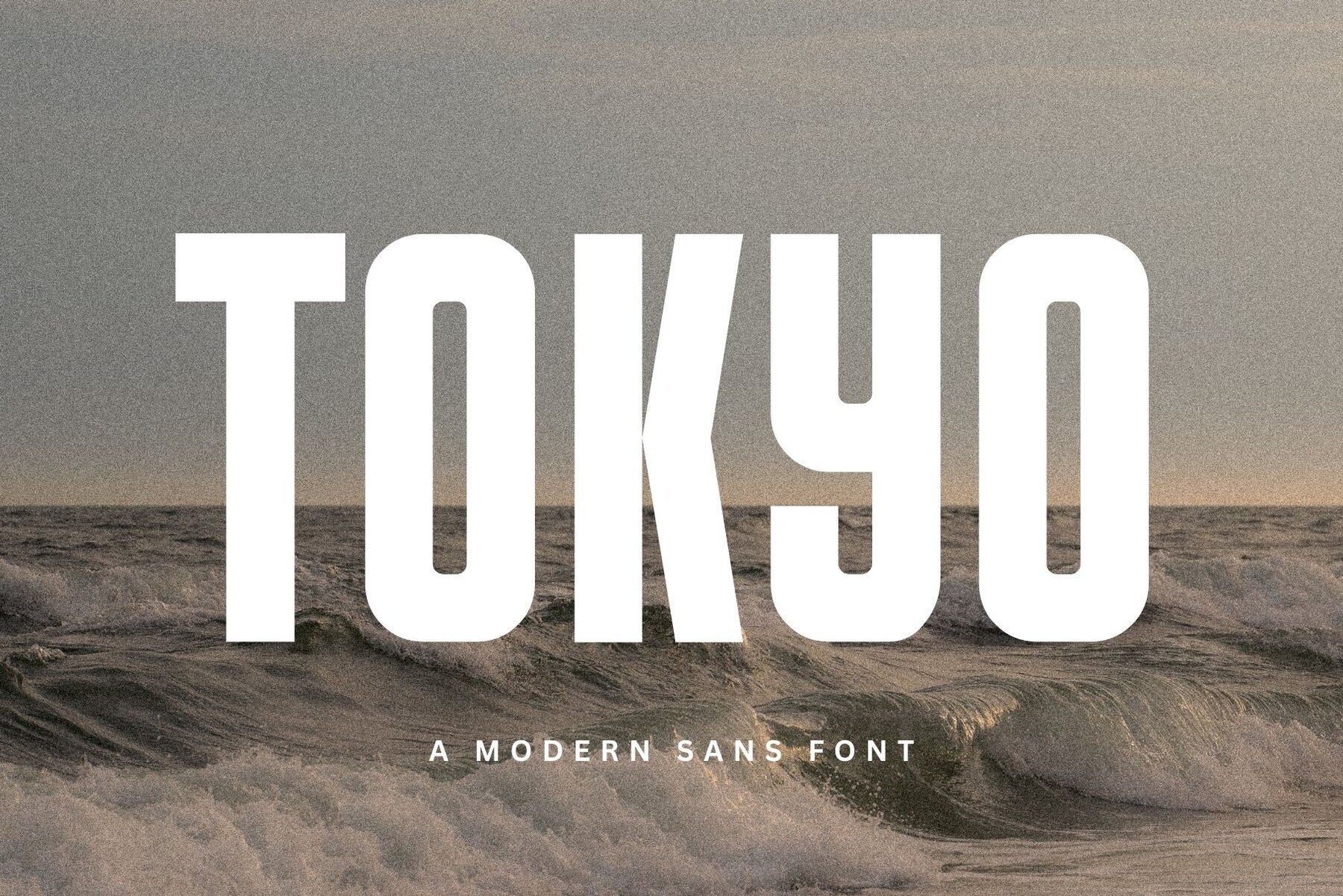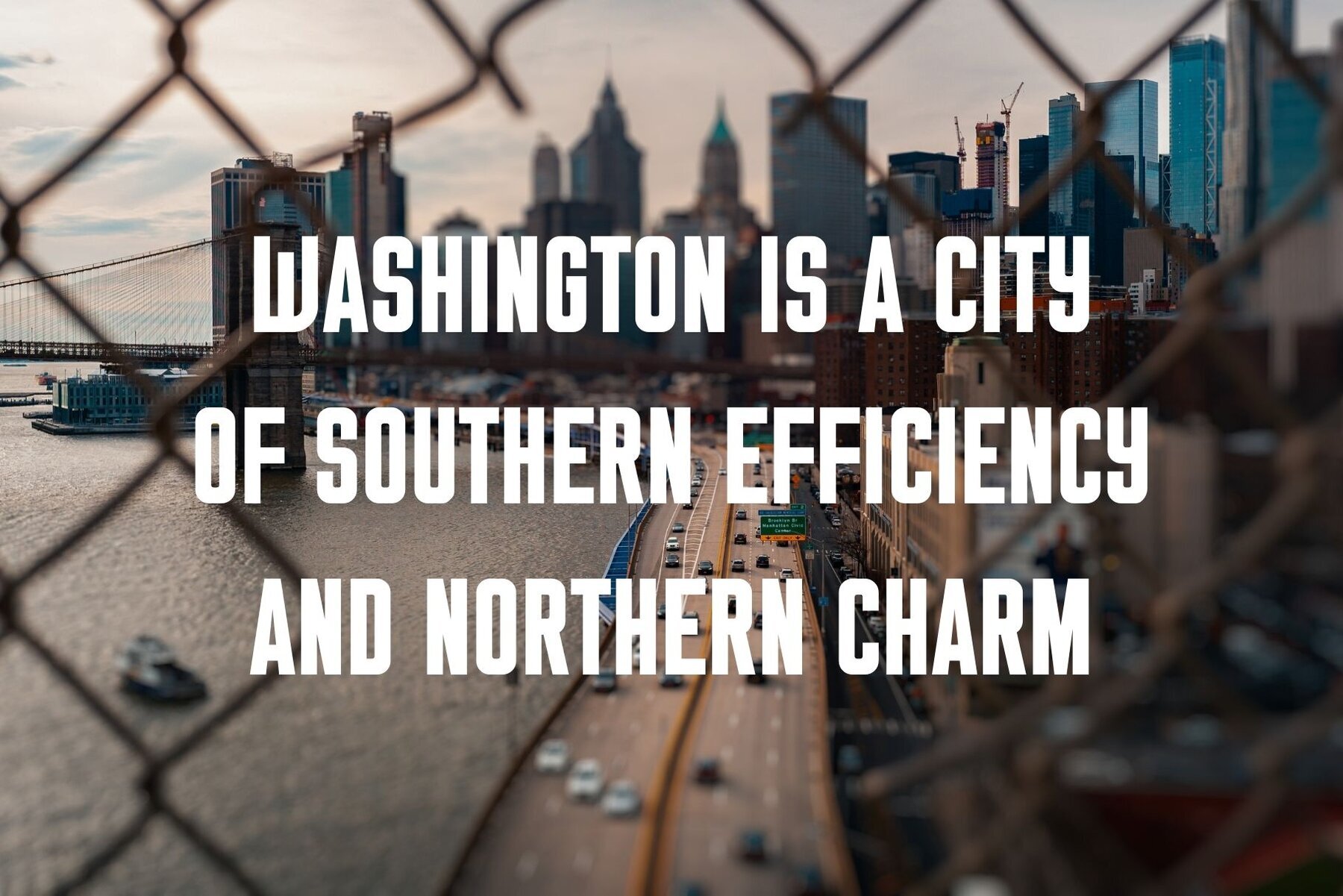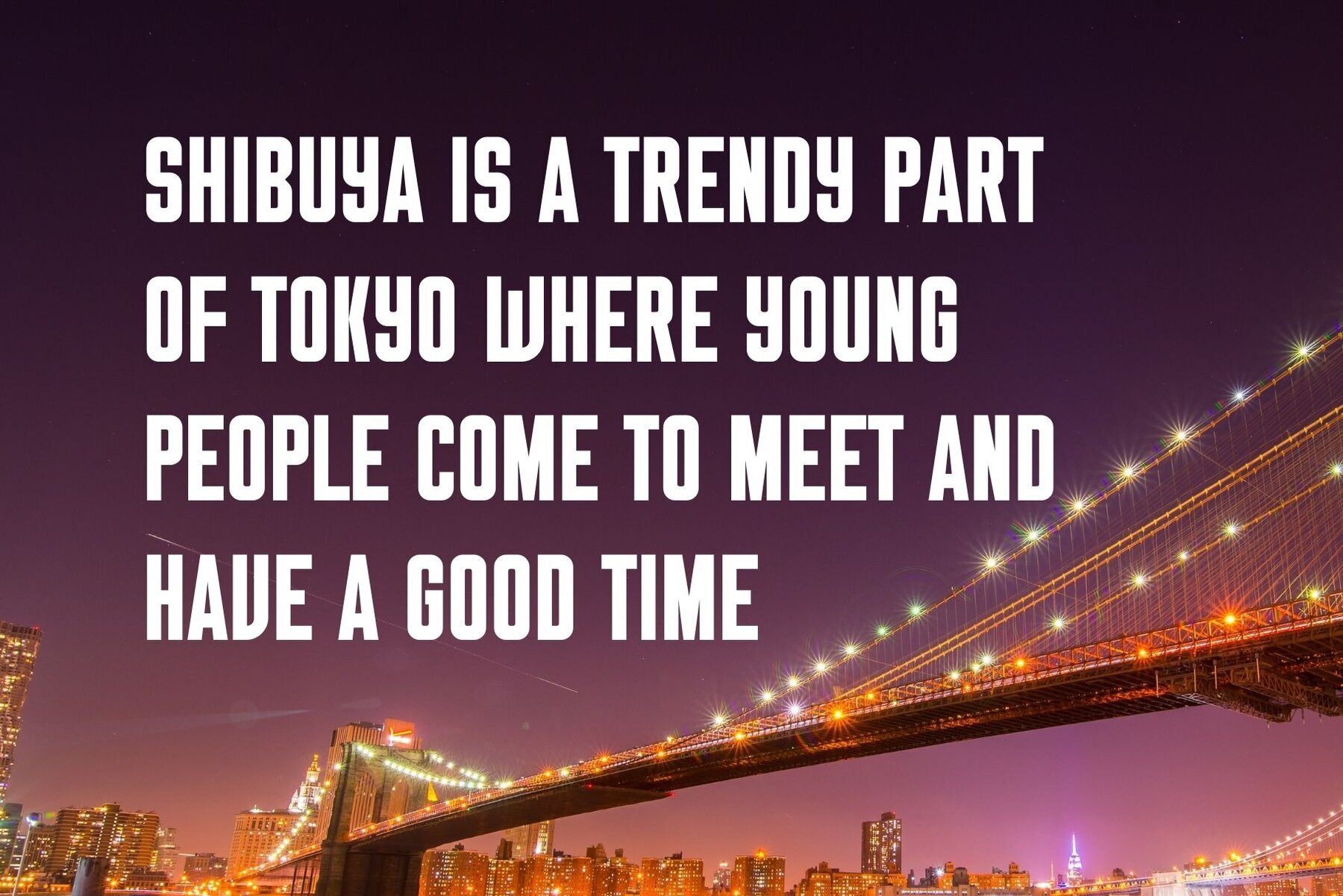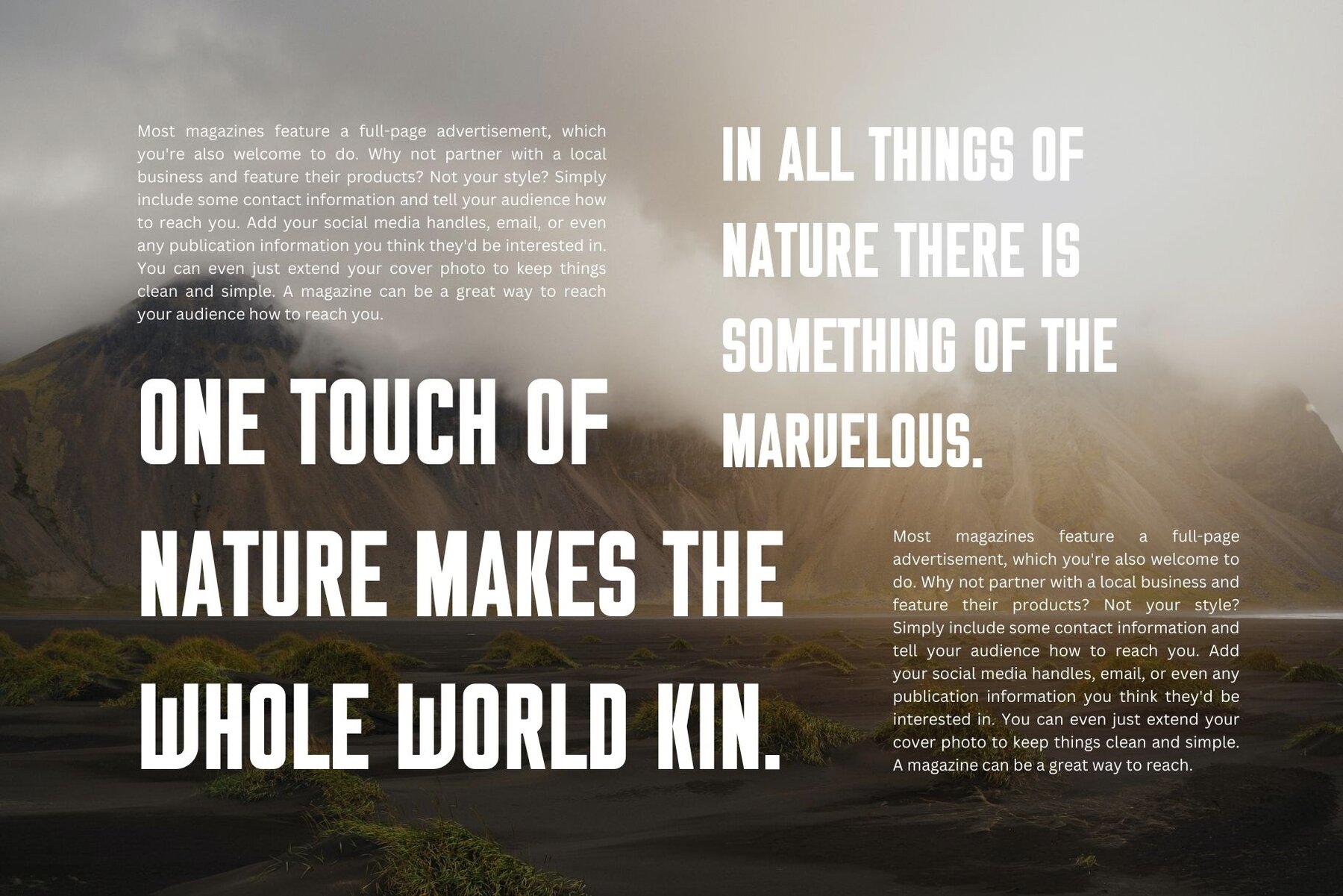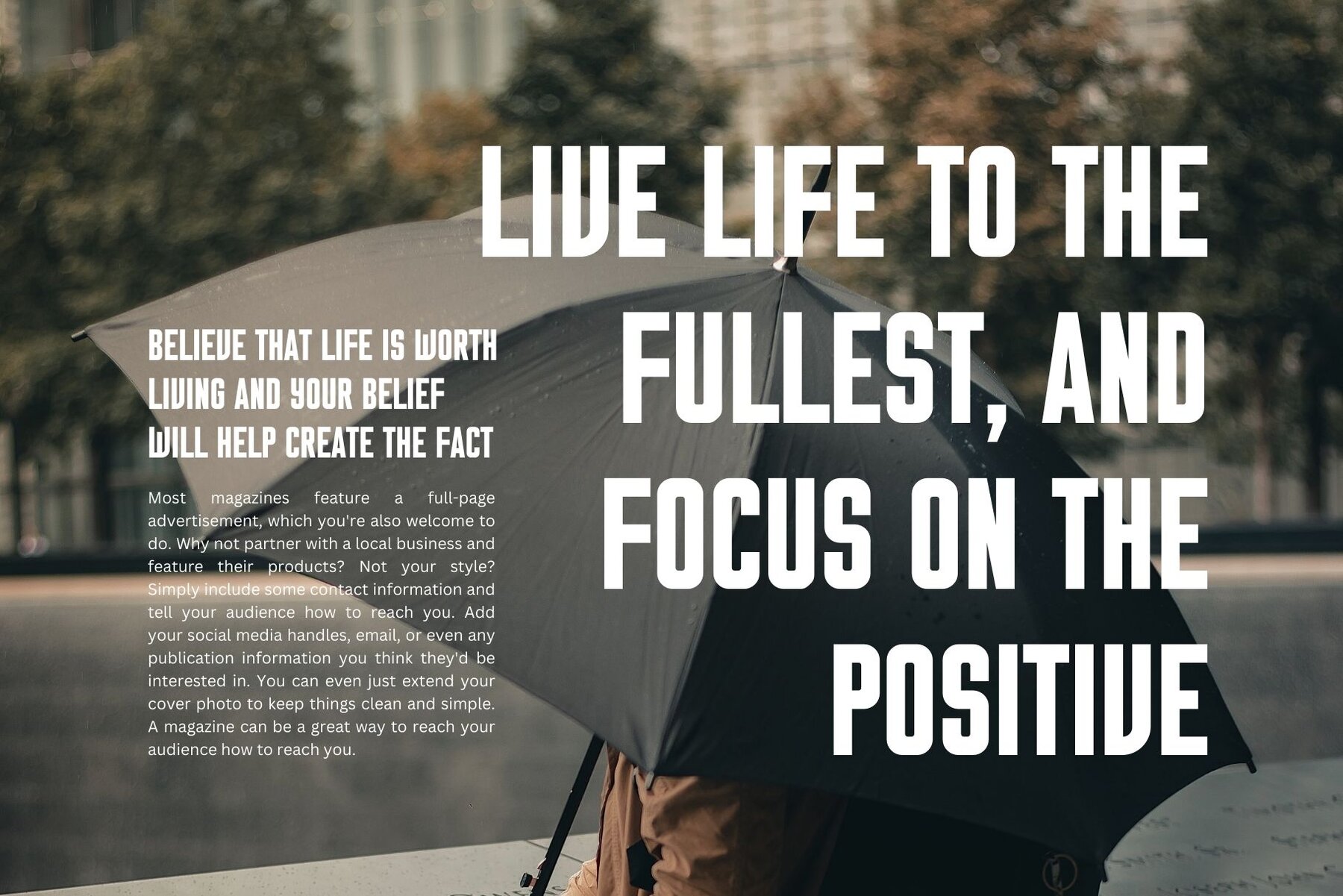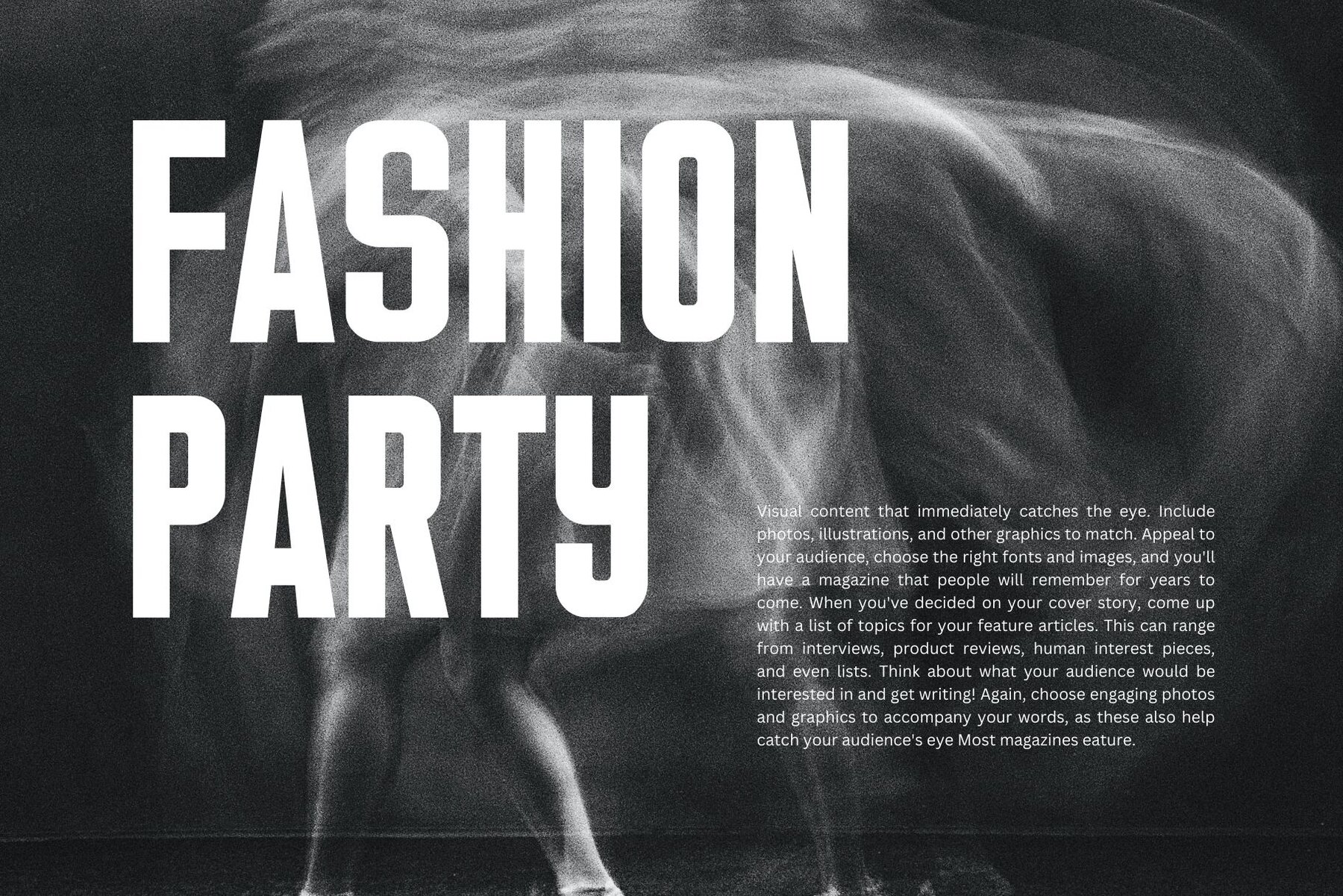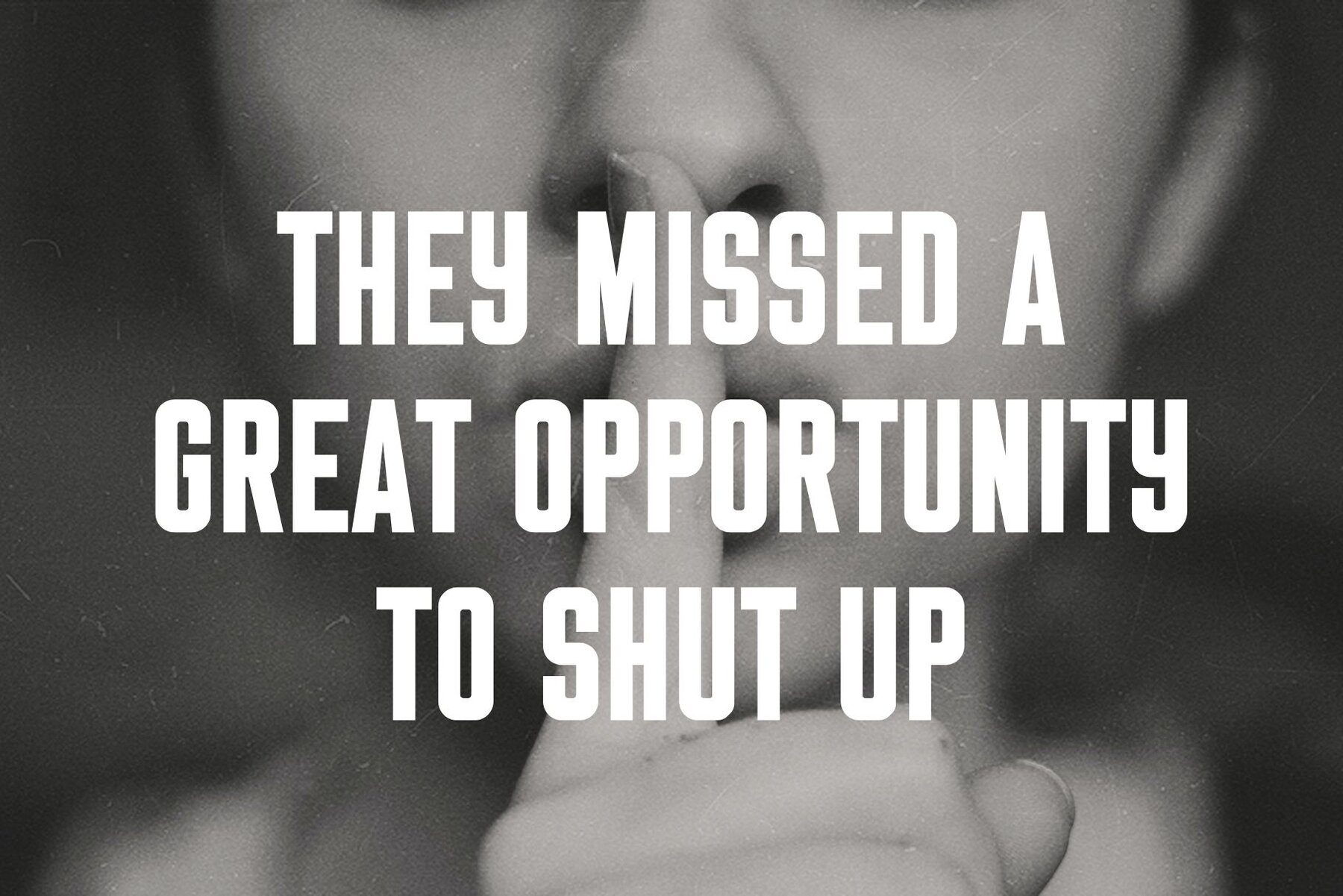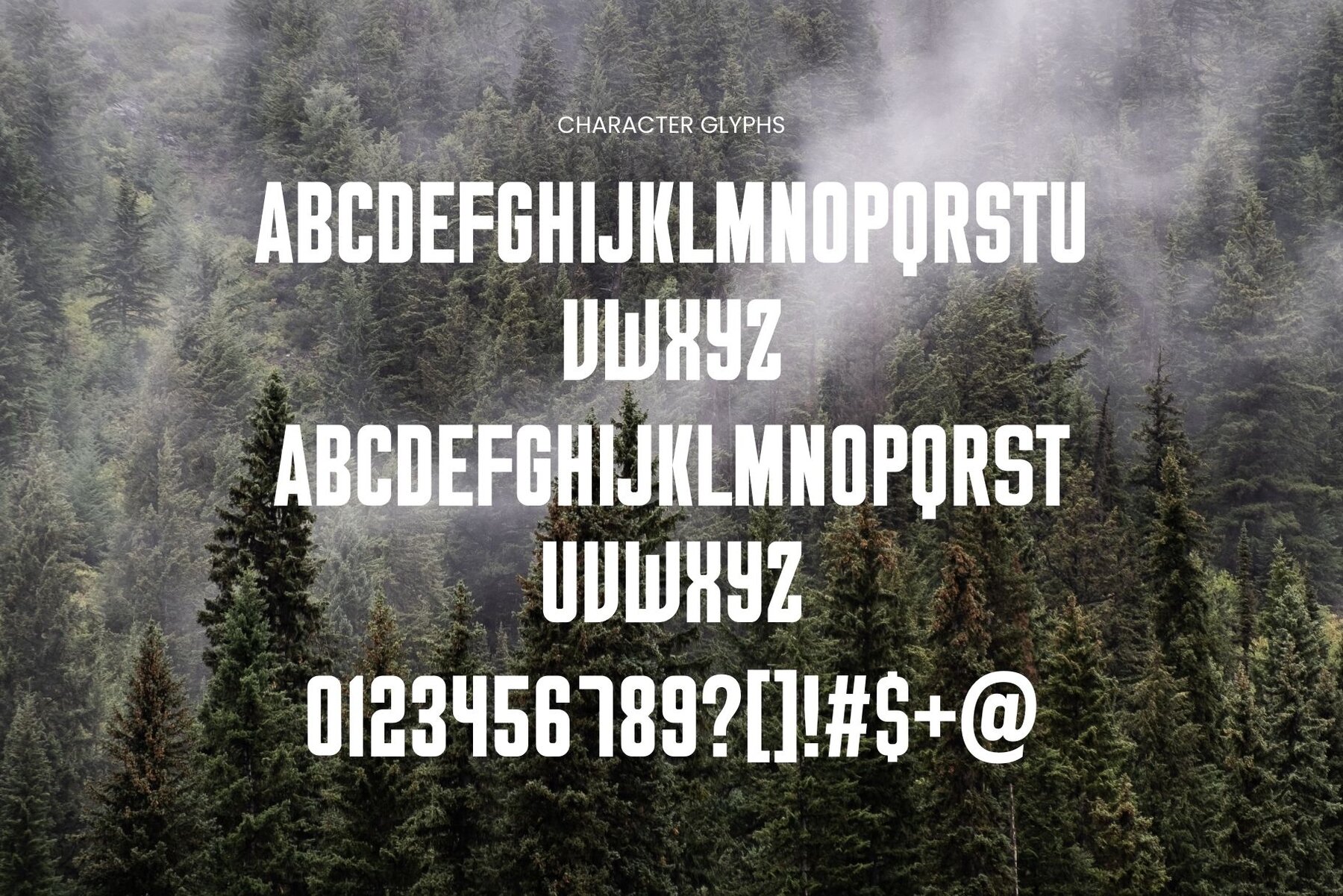
Tokyo Font
Tokyo Regular
Tokyo by Graphicxell is a typeface inspired by minimalist design, ideal for creating sleek and modern visuals. Its clean lines and contemporary aesthetics make it suitable for a variety of projects, ranging from branding to elegant crafting.Tokyo: Minimalist Typeface for Versatile Design